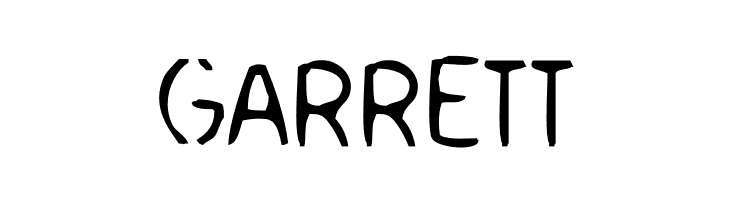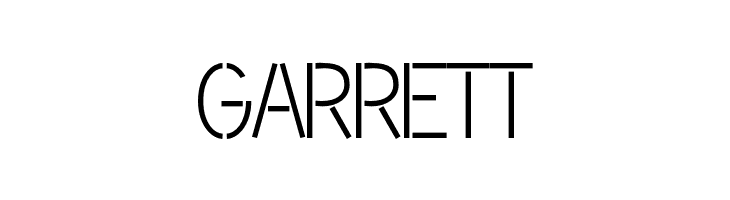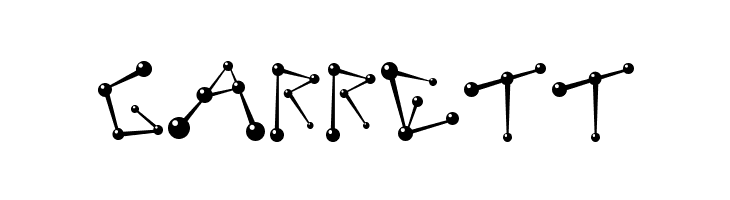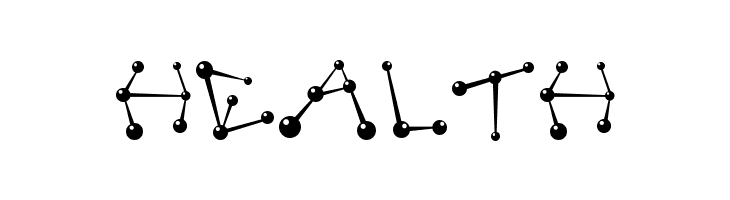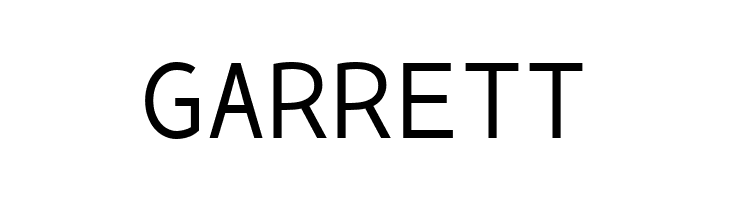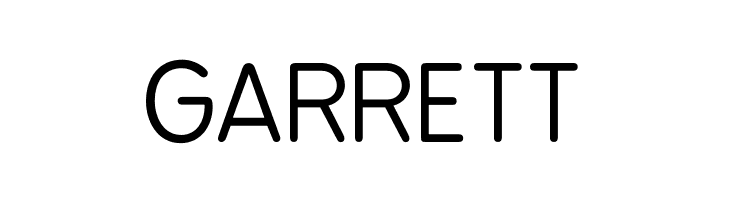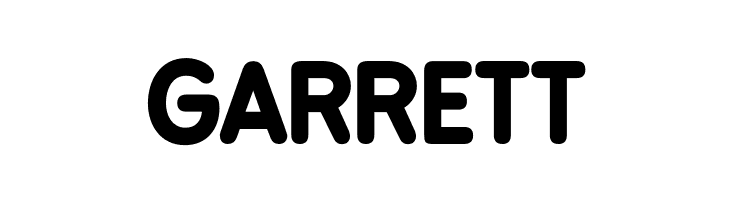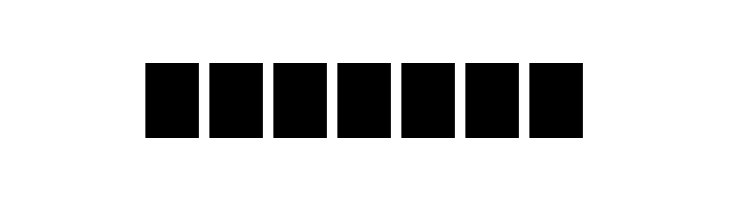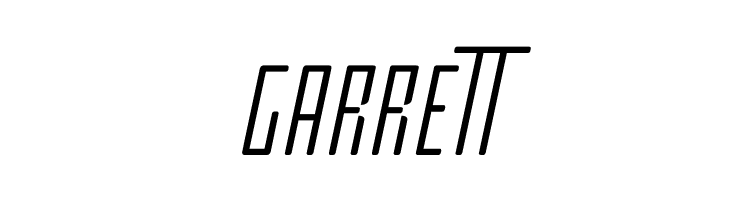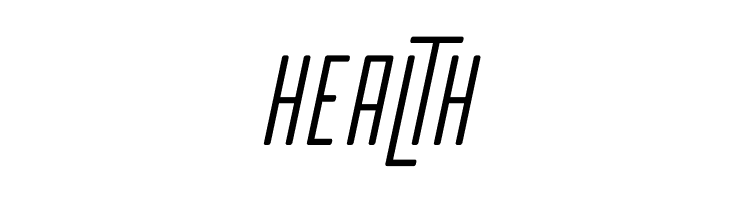
• BPimperial-LightItalic
A modern, narrow, and slightly italicized font with consistent stroke width.
• BPlatinNumerals
Bold, uppercase Roman numerals with a classic and authoritative style.
• BPletterSquares
A bold, geometric font with characters in solid black squares, ideal for digital or retro themes.
• BPmolecules
A decorative font inspired by molecular structures, featuring dots and lines.
• BPmono
A modern, monospaced typeface with geometric structure and uniform spacing.
• BPmono
A clean, modern monospaced font with uniform character width and minimalist design.
• BPpong
A modern, geometric font with clean lines and consistent stroke width.
• BPpongGrunge
A bold, grunge-inspired font with irregular, hand-drawn strokes and a raw, edgy appearance.
• BPreplay
A modern, rounded sans-serif font with clean lines and uniform strokes.
• BPreplay-Bold
A bold, rounded font with smooth curves and even spacing.